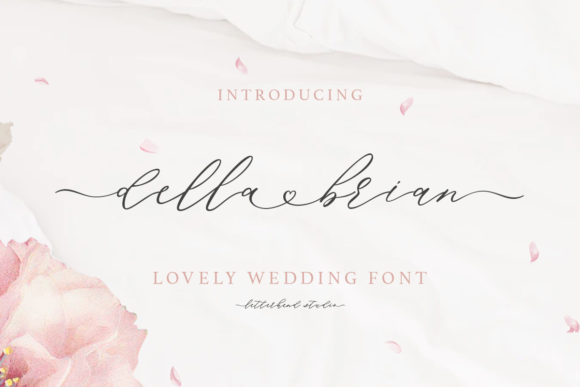
Della Brian Font: The Elegant and Charming Choice for Your Designs
When it comes to choosing the right font for your design project, it can be overwhelming with the numerous options available. However, if you’re looking for a font that exudes elegance and charm, look no further than the Della Brian font. This beautiful handwritten font is perfect for a variety of design projects, including wedding invitations, thank you cards, quotes, greeting cards, logos, business cards, and more.
What Makes Della Brian Font So Special?
Della Brian font feels equally charming and elegant, making it an excellent choice for designs that require a personal touch. Its stunning appearance on various design materials is due to its unique characteristics, which set it apart from other fonts.
- Elegant and Charming: Della Brian font has an unmistakable elegance and charm that makes it perfect for designs that require a sophisticated look.
- Handwritten Touch: This font provides a beautiful handwritten touch to your designs, making them stand out from the crowd.
- PUA Encoded: Della Brian font is PUA encoded, which means you can access all of the glyphs and swashes with ease.
Design Applications for Della Brian Font
Della Brian font is a versatile font that can be used for a wide range of design projects. Here are some of the most popular applications:
- Wedding Invitations: Add a touch of elegance to your wedding invitations with Della Brian font.
- Thank You Cards: Express your gratitude with beautifully designed thank you cards featuring Della Brian font.
- Quotes: Make your quotes stand out with the elegant and charming Della Brian font.
- Greeting Cards: Create stunning greeting cards for special occasions, such as birthdays, anniversaries, and holidays.
- Logos: Use Della Brian font to create a unique and memorable logo for your business.
- Business Cards: Add a professional touch to your business cards with Della Brian font.
The Benefits of Using Della Brian Font
There are several benefits to using Della Brian font for your design projects. Here are some of the most significant advantages:
- Unique and Memorable: Della Brian font provides a unique and memorable look to your designs, setting them apart from others.
- Elegant and Sophisticated: This font exudes elegance and sophistication, making it perfect for designs that require a high-end look.
- Easy to Use: Della Brian font is PUA encoded, making it easy to access all of the glyphs and swashes.
- Versatile: This font can be used for a wide range of design projects, from wedding invitations to logos and business cards.
Tips and Tricks for Using Della Brian Font
Here are some tips and tricks to help you get the most out of Della Brian font:
- Pair with Other Fonts: Experiment with pairing Della Brian font with other fonts to create a unique look.
- Adjust Font Size: Adjust the font size to achieve the desired effect, from elegant and sophisticated to bold and eye-catching.
- Use Swashes: Take advantage of the PUA encoding and use swashes to add a touch of elegance to your designs.
In conclusion, Della Brian font is an excellent choice for designers looking for a font that exudes elegance and charm. Its versatility, ease of use, and unique characteristics make it perfect for a wide range of design projects. Whether you’re creating wedding invitations, logos, or business cards, Della Brian font is sure to make your designs stand out.